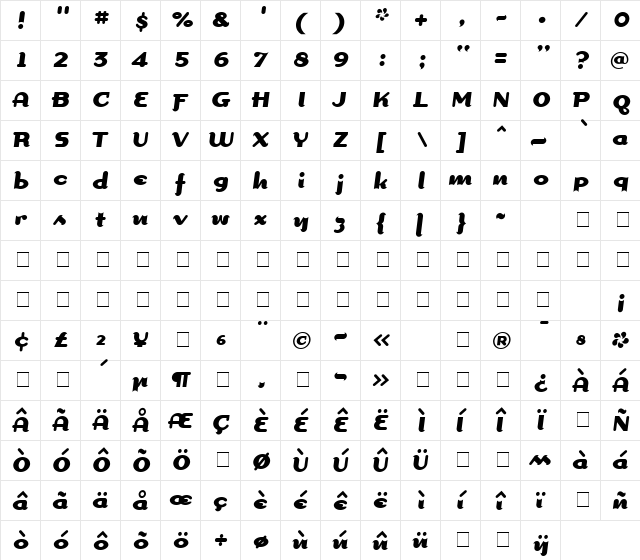
DogmomScriptBold Script Bold Font Preview
DogmomScriptBold Script Bold
Design Context for DogmomScriptBold Typeface
DogmomScriptBold brings a calligraphic fluidity to the page — its connecting strokes and expressive curves give it an unmistakably human quality. The heavy weight commands attention and anchors typographic hierarchies.
Font Pairing: Combine DogmomScriptBold with a simple geometric sans for maximum contrast — the tension between flowing curves and clean structure is a classic typographic pairing.
Pro Tip: Pair DogmomScriptBold with a clean sans-serif for supporting text. The contrast between fluid script and geometric structure creates an elegant typographic hierarchy.